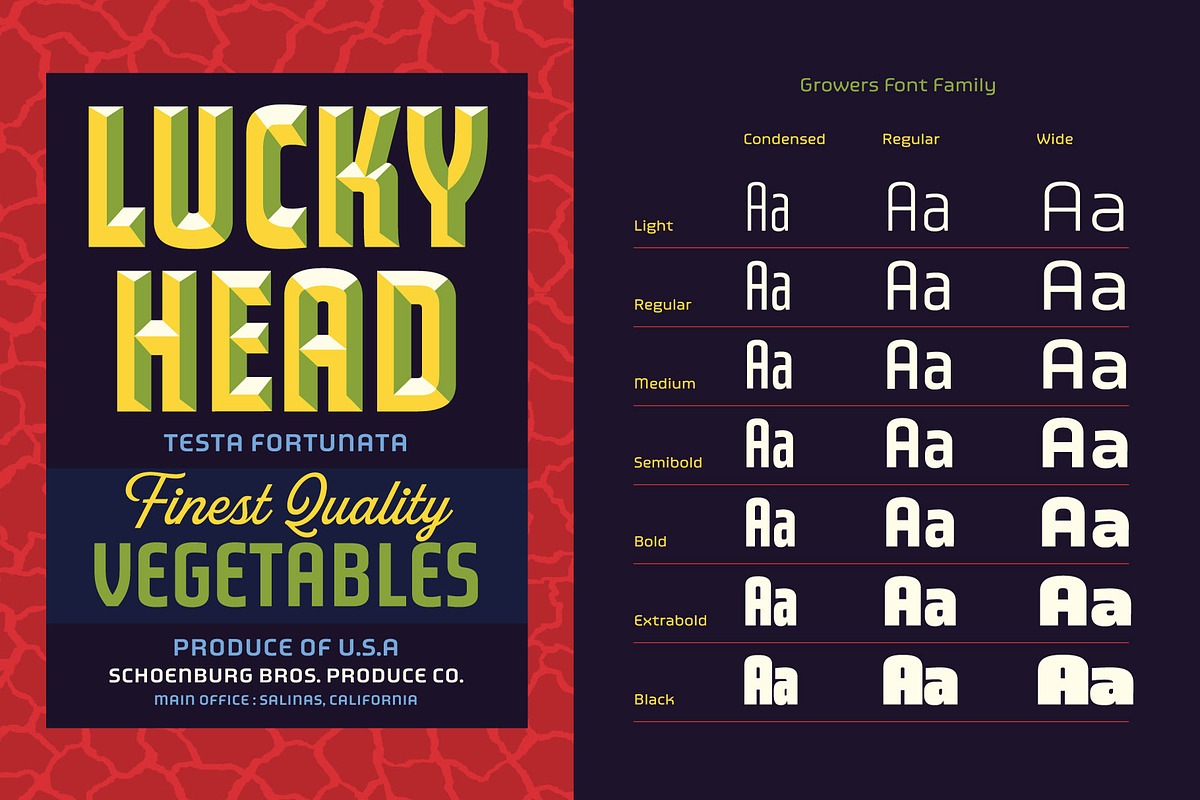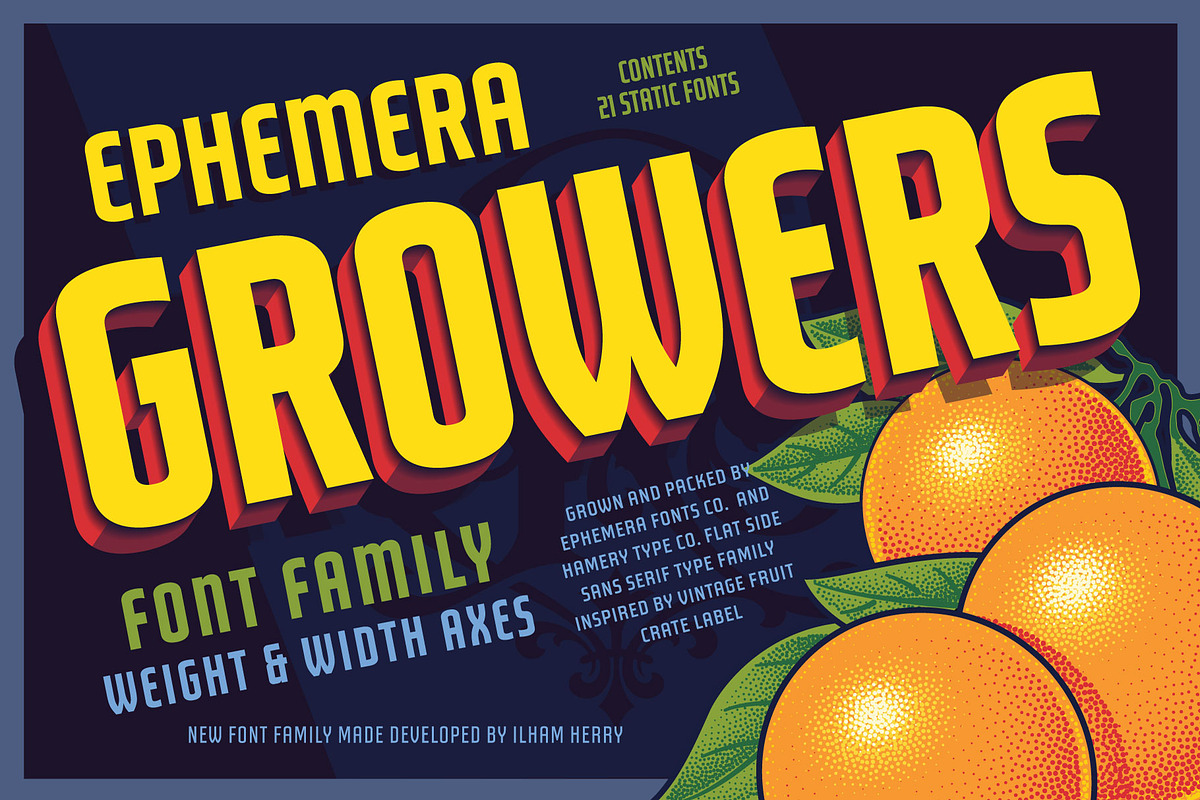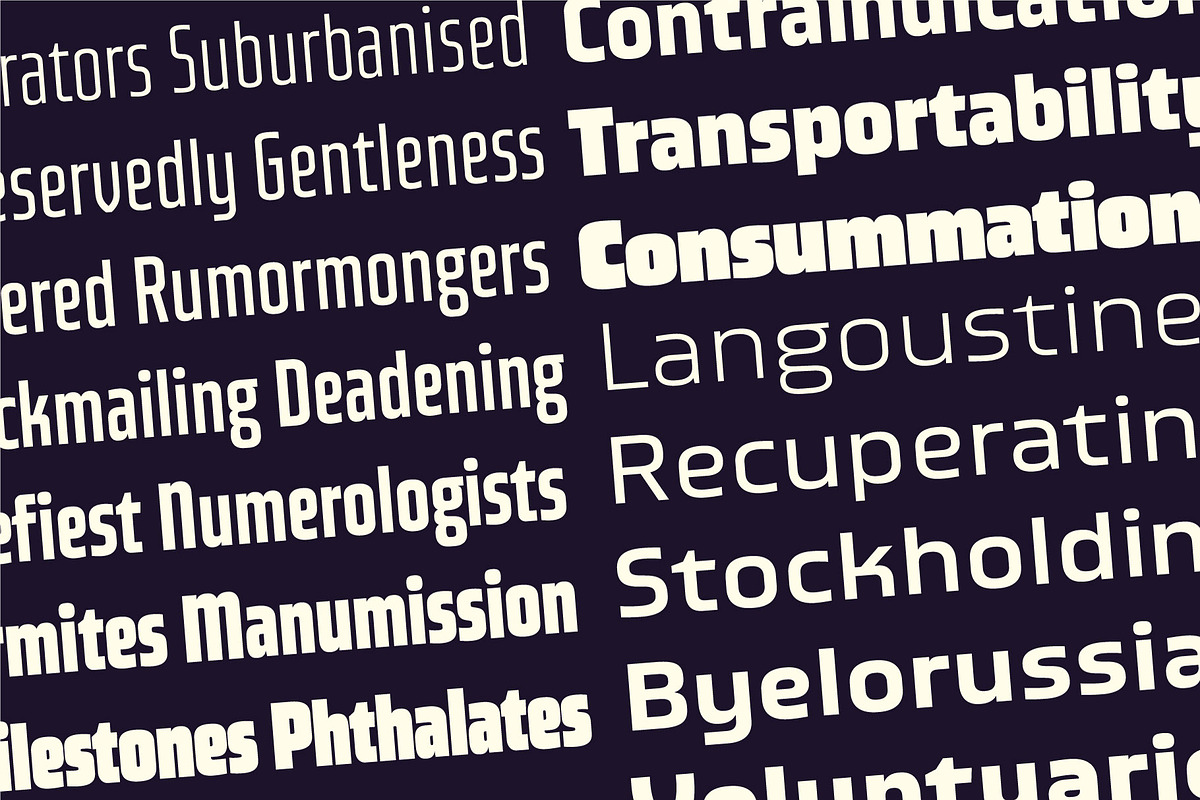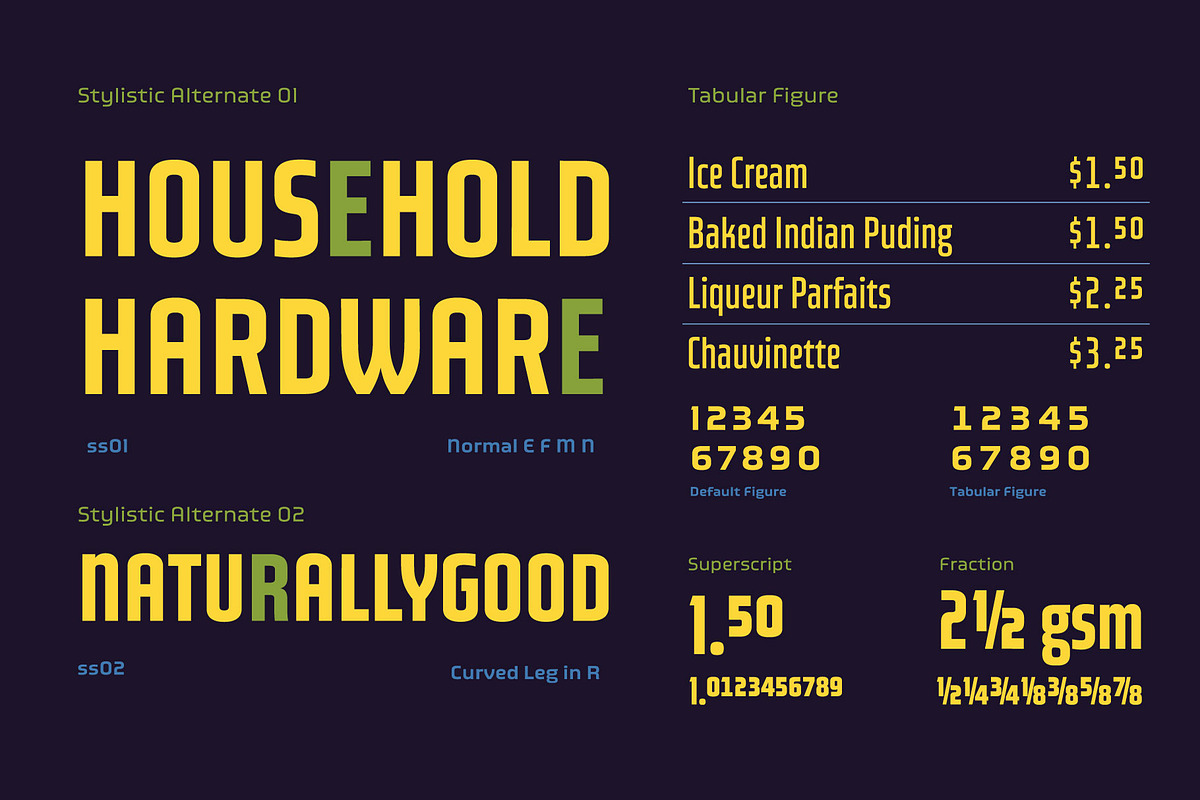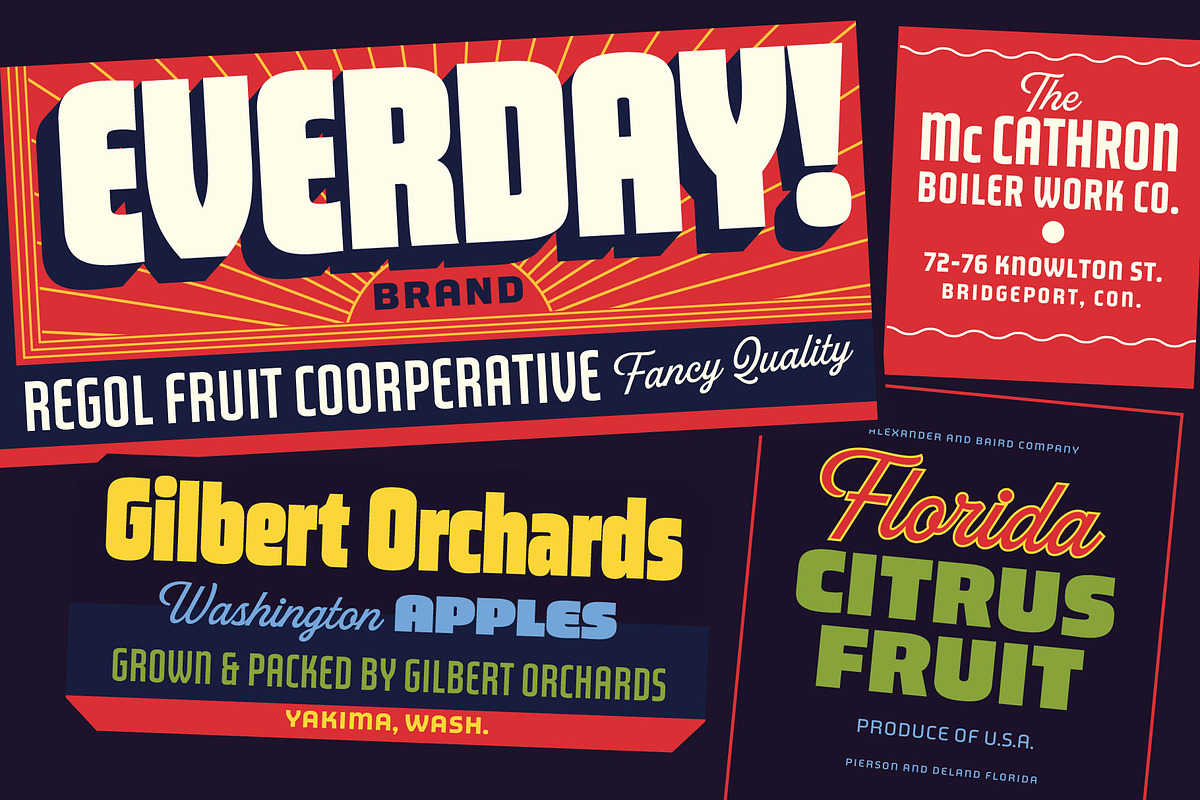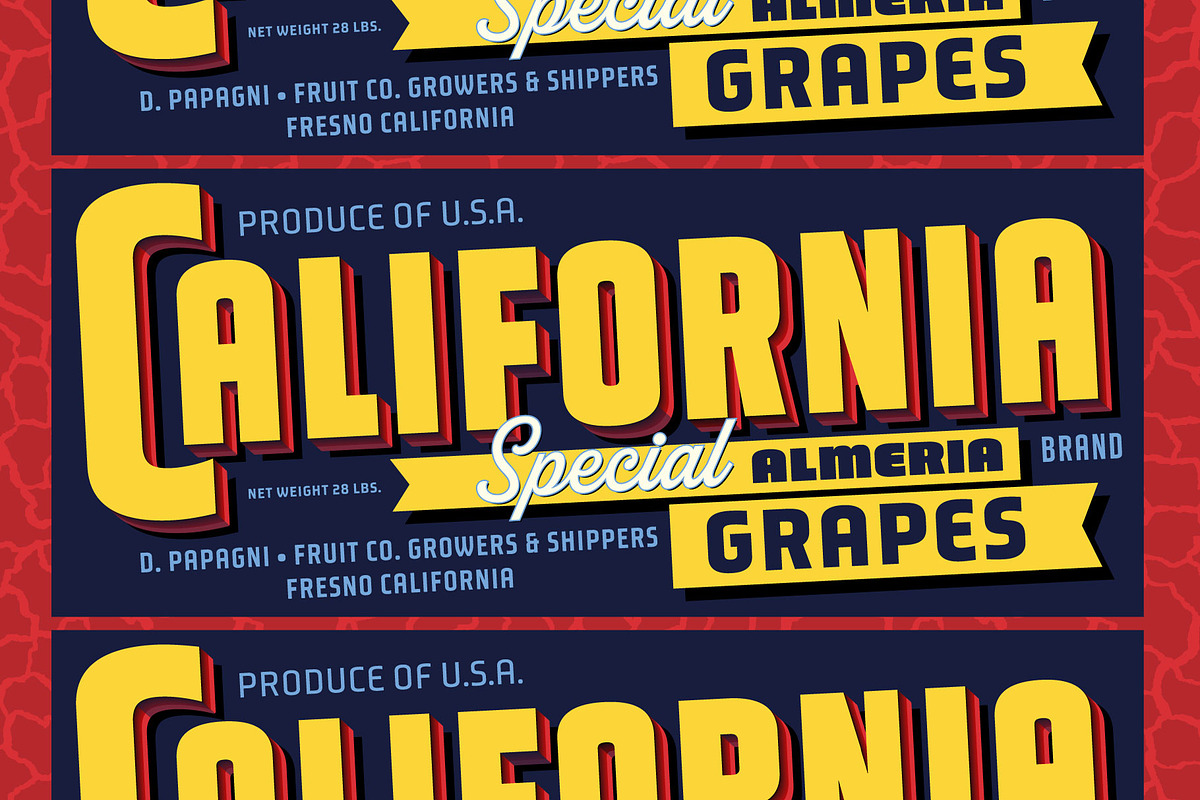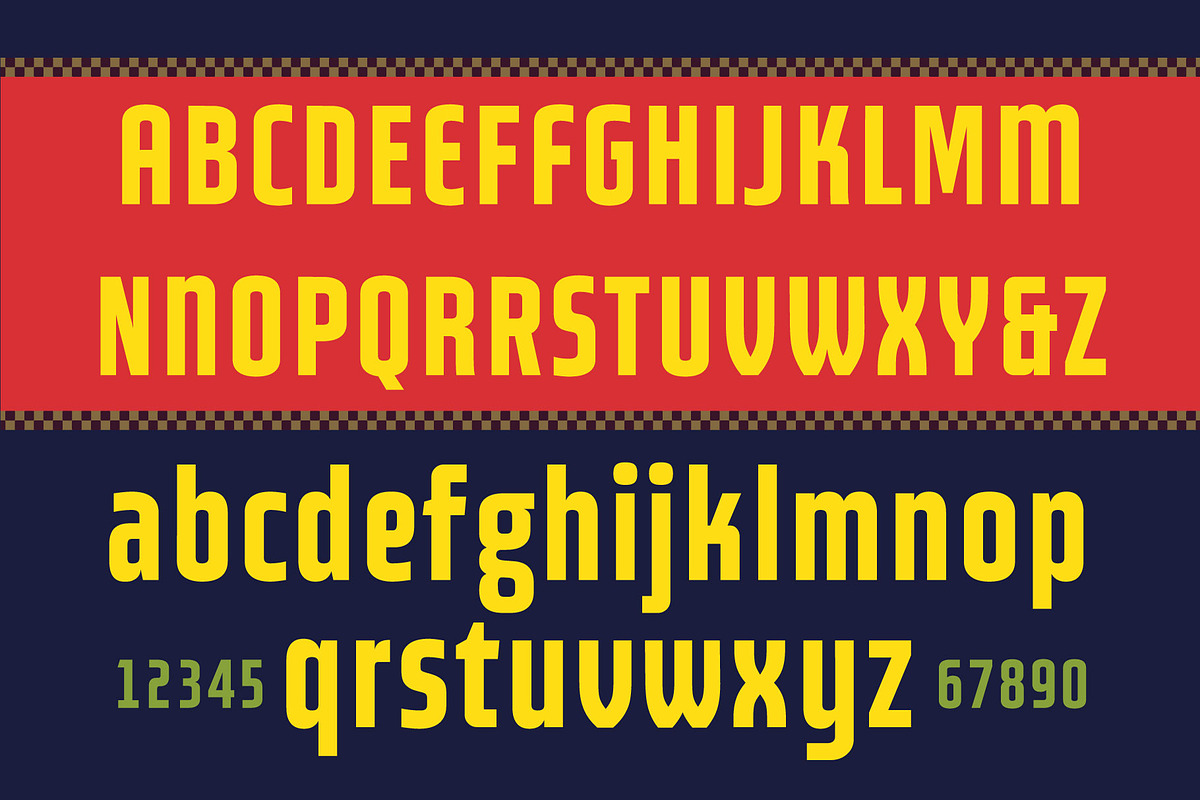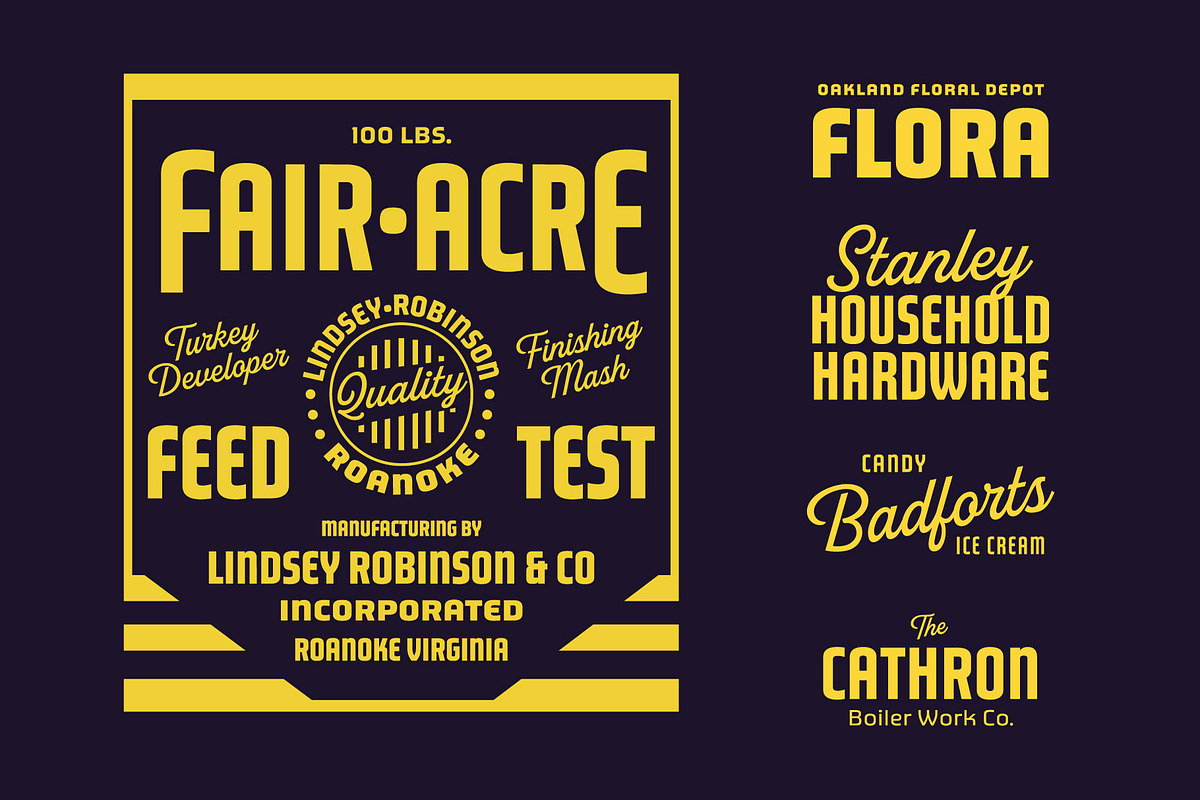
Growers Font Family
Low contrast flat side sans serif with open apertures, inspired by vintage fruit crate labels. This typeface comes with 21 static fonts. OpenType features support stylistic alternates, tabular figures, superscript figures, and fractions. The variable weight and width make it effortless to mold this versatile typeface to suit any project and create dynamic and harmonious compositions. Ideal for packaging, posters, menus, websites, logos, branding materials, and more.
Grower Condensed Family (7 style Light to Bold)
Grower Regular Family (7 style Light to Bold)
Grower Wide Family (7 style Light to Bold)
- OpenType features support stylistic alternates, tabular figures, superscript figures, and fractions.